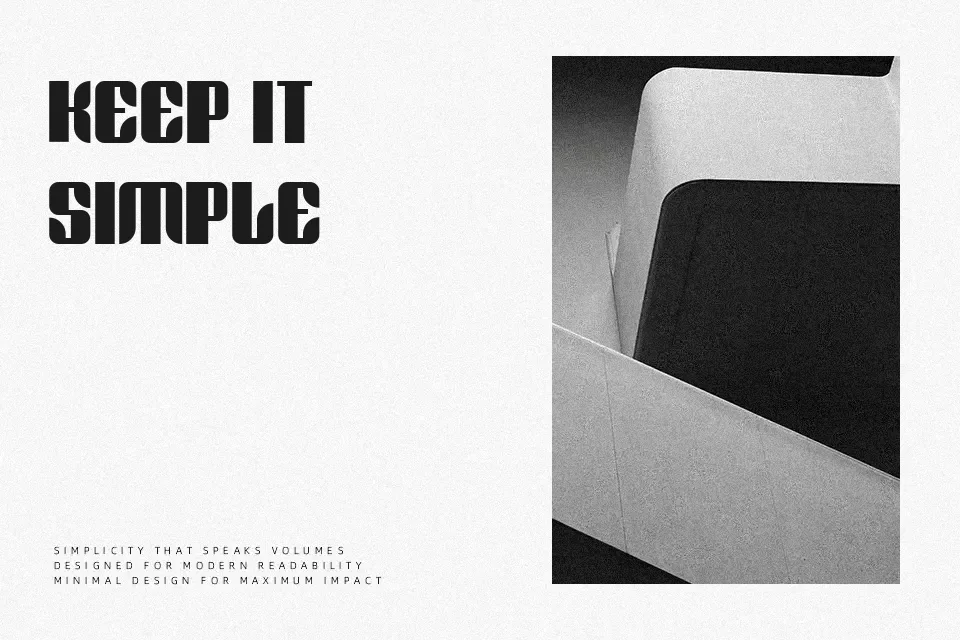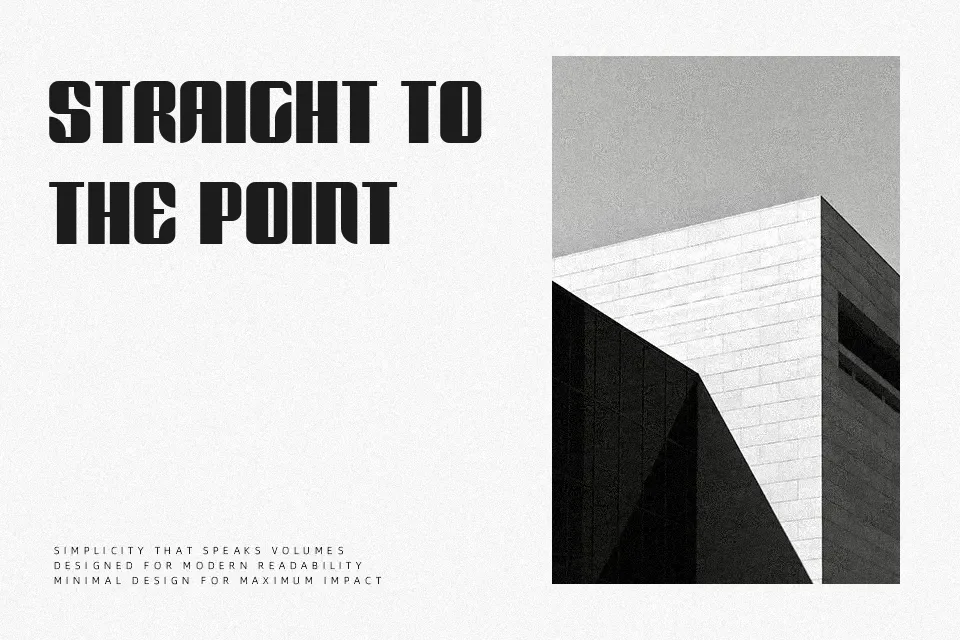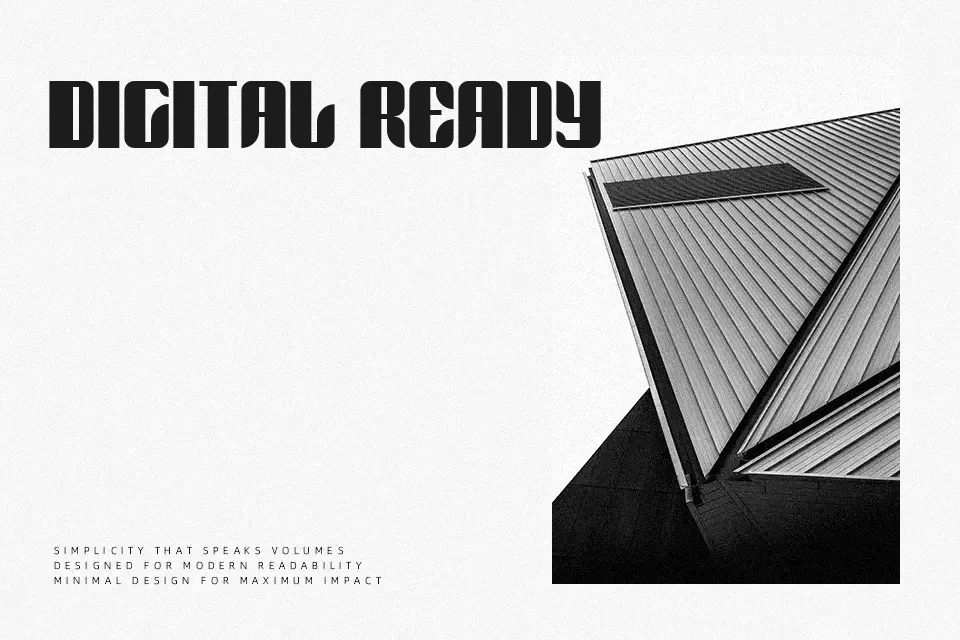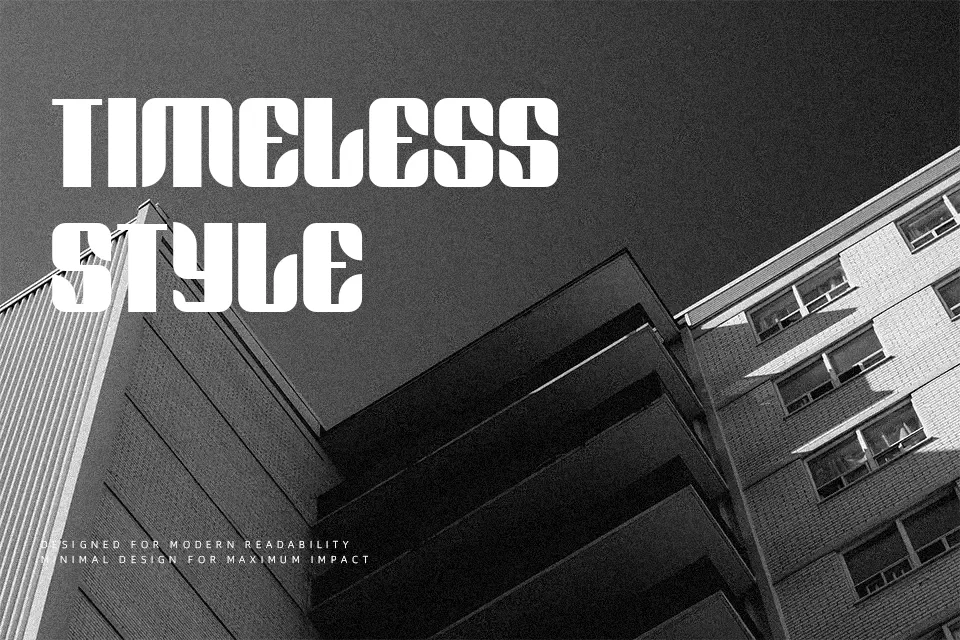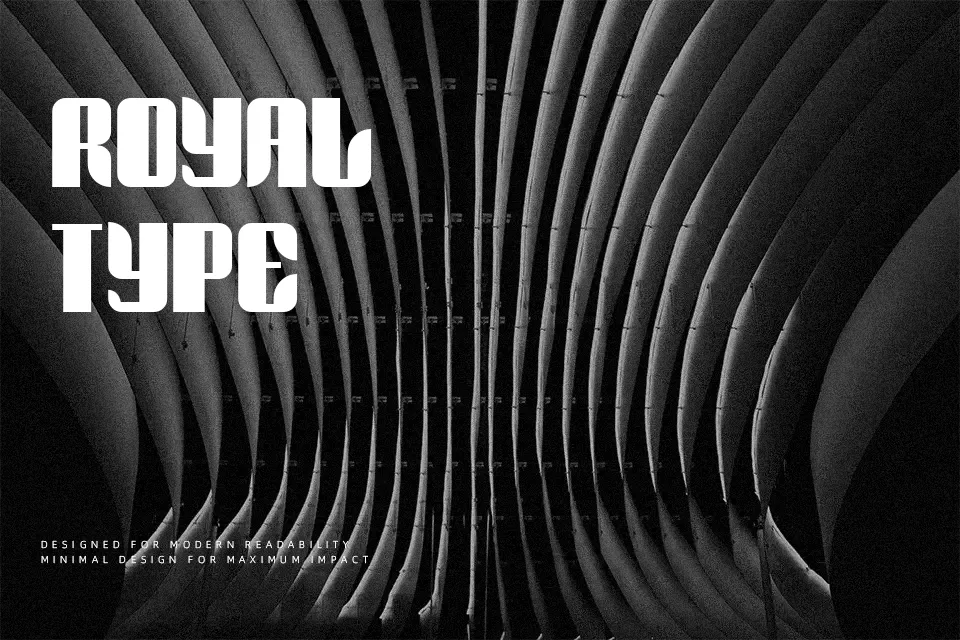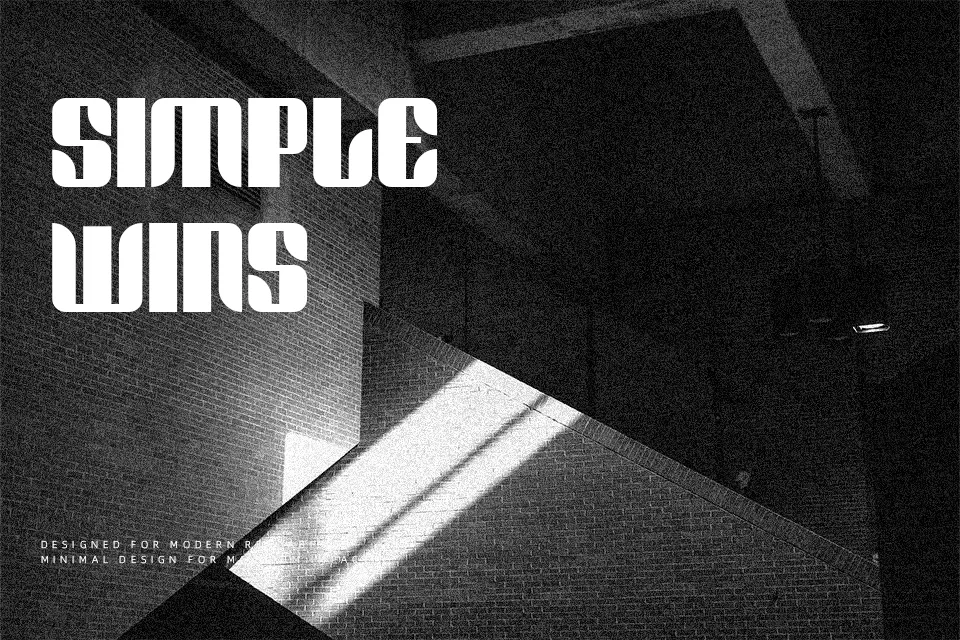
Redford BV Font
Redford BV Font makes a bold visual statement with its heavy, blocky letterforms. The typeface features tight spacing and enormous, thick strokes that create a striking poster-cut presence reminiscent of classic retro design styles. Because the characters are so dense and prominent, this design immediately grabs attention in large display applications. While its impactful appearance excels in large headlines, apparel logos, and vintage-inspired graphics, the extreme weight significantly reduces legibility at smaller scales. The bold letterforms are highly effective for commanding attention, but they perform poorly in dense paragraphs or extended reading scenarios.
retro festival posters
heavy headline text
vintage apparel branding
bold logo design
corporate body copy
spreadsheet data
Perfect for advertising, branding, and headline, with a bold and display style.